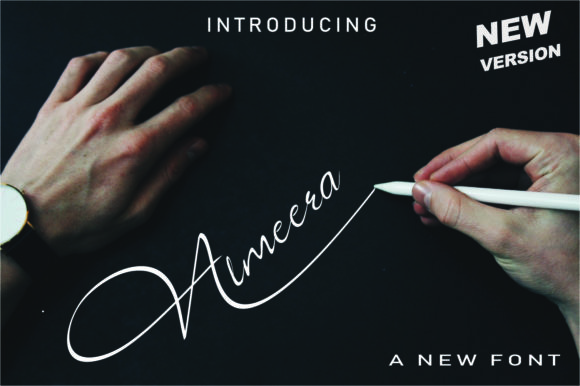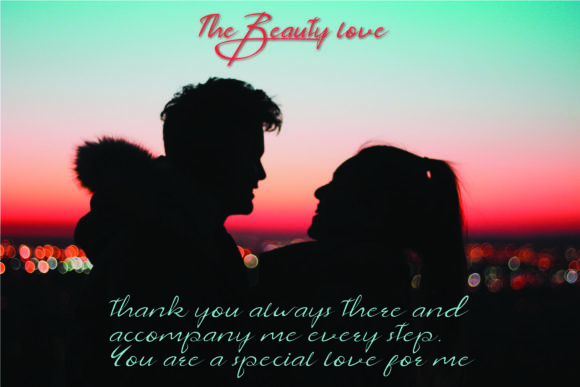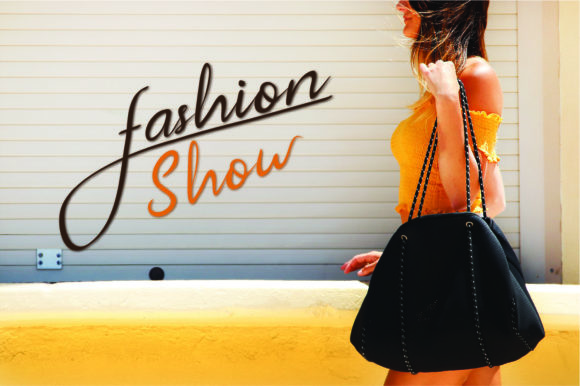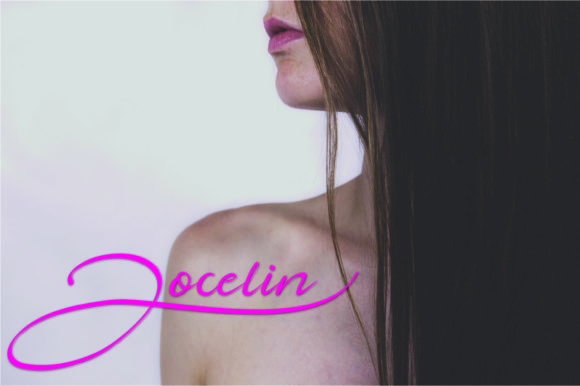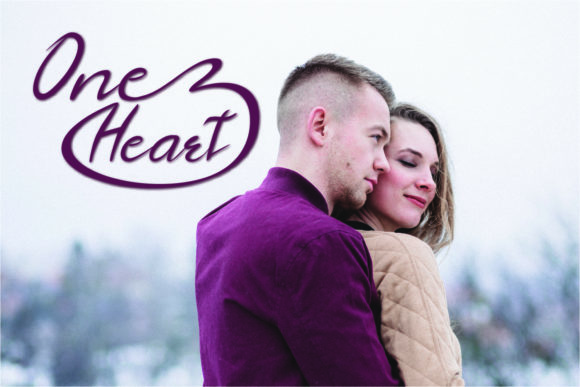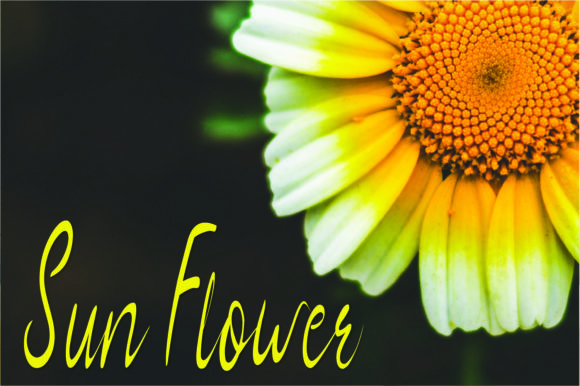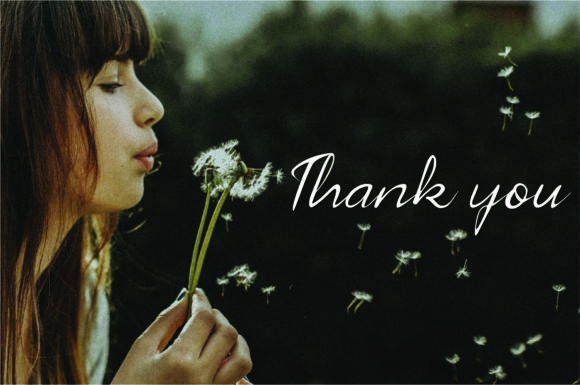
Almeera Font
About Almeera Font
Almeera is a gorgeous and sweet script font, perfect for turning any design idea into a true standout. Fall in love with its unique charm!